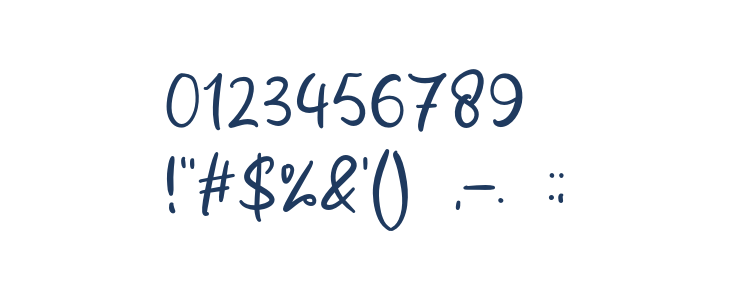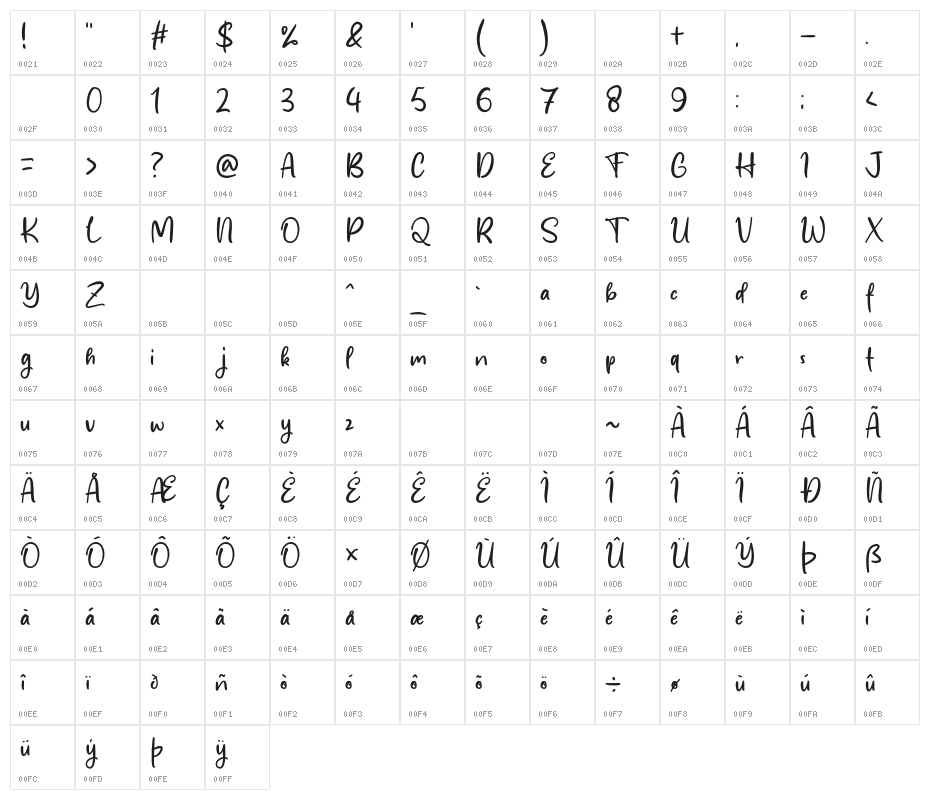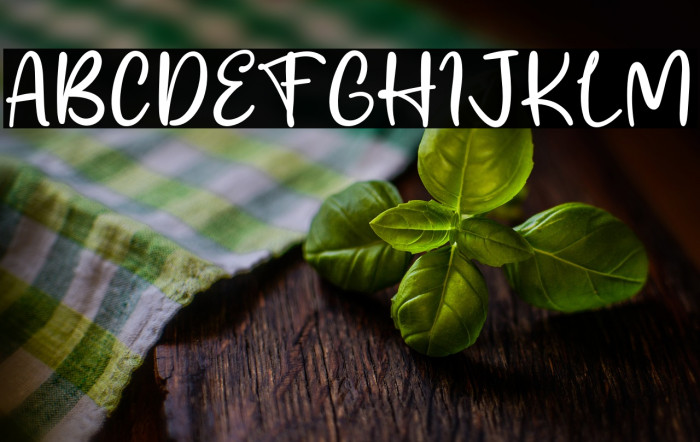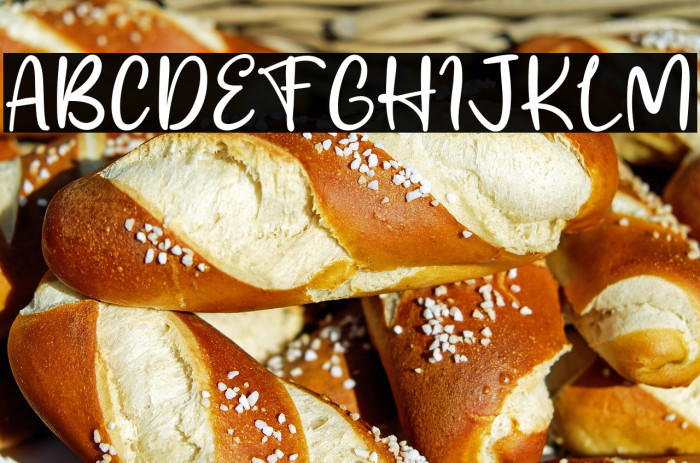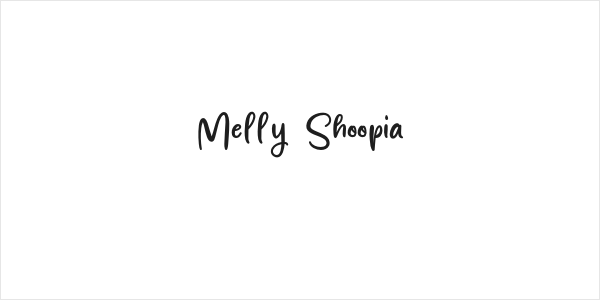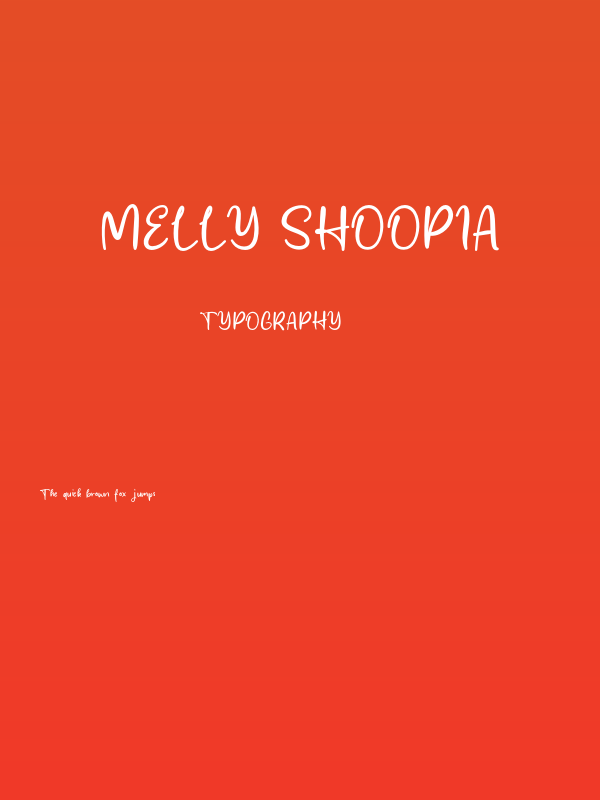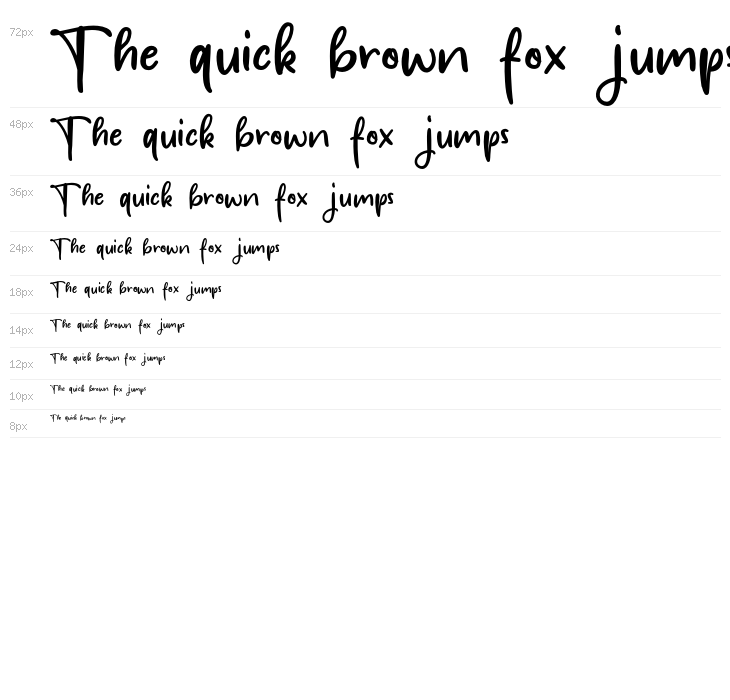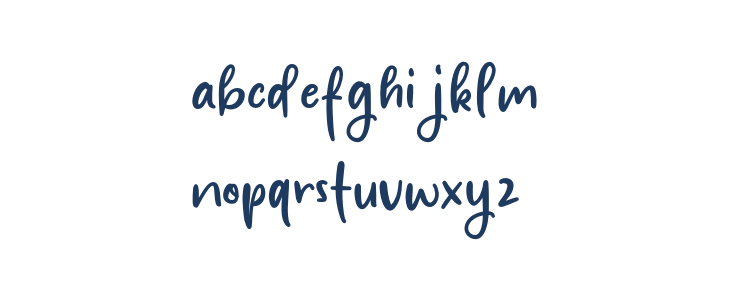
Melly Shoopia Font
Melly Shoopia Description
This font features a playful and casual handwritten style, characterized by its smooth, flowing curves and slightly irregular strokes that give it a personal touch. The uppercase letters are bold and prominent, while the lowercase letters maintain a consistent flow, enhancing readability. The numbers are rounded and maintain the same playful aesthetic, making them suitable for informal contexts. Special characters are well-integrated, maintaining the font's overall cohesive look. This font is ideal for projects that require a friendly and approachable feel.
| Use Case | Headlines, Logos, Informal text |
| Proposed Projects | Greeting cards, invitations, social media graphics, children's books, and personal branding. |